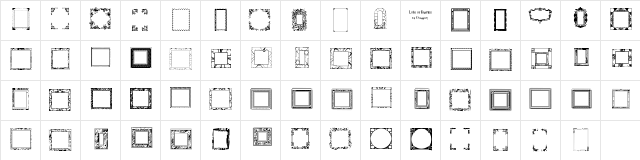
Lots of Frames Regular
Design Context for Lots of Frames Typeface
Lots of Frames is a composed and adaptable typeface that performs quietly and consistently across a wide range of design contexts.